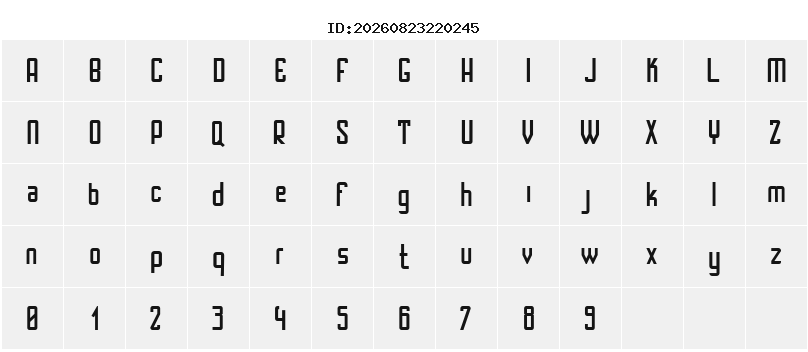
Santa Rosalia.ttf is a modern, elegant sans-serif font designed for ultimate readability and visual harmony. Perfect for branding, headlines, web design, and print materials.